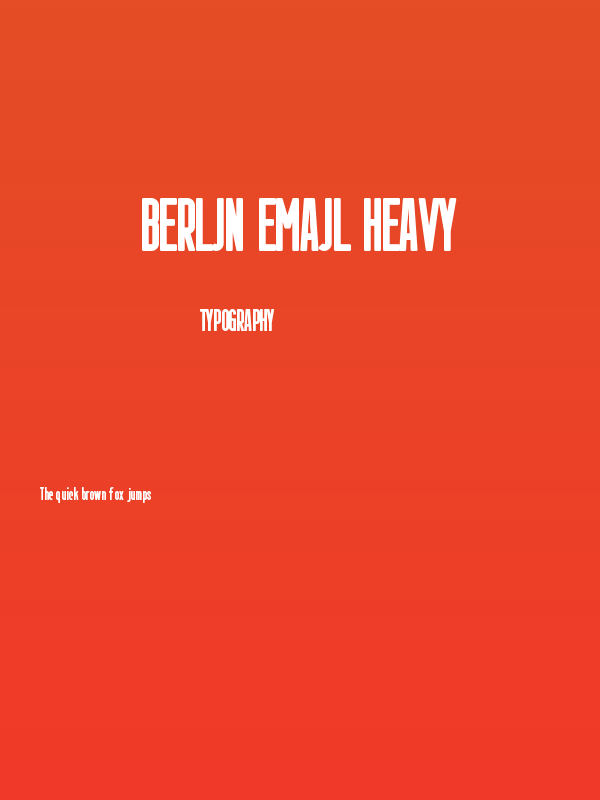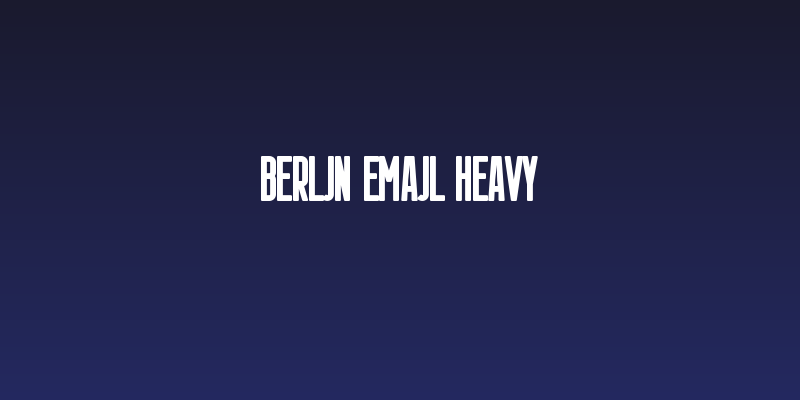
Berlin Email Heavy Font
Berlin Email Heavy Description
This font features bold, thick strokes with a strong presence, making it ideal for impactful designs. The characters are uniformly wide, with a consistent weight throughout, giving it a robust and solid appearance. The uppercase letters are tall and commanding, while the lowercase letters maintain a similar width, ensuring readability and balance. The numerals are clear and distinct, matching the boldness of the alphabetic characters. Special characters are designed with the same thickness, providing a cohesive look across all elements. This font's heavy weight and uniformity make it suitable for attention-grabbing headlines and titles.
| Proposed Projects | Ideal for posters, headlines, branding materials, and any design requiring a strong visual impact. |